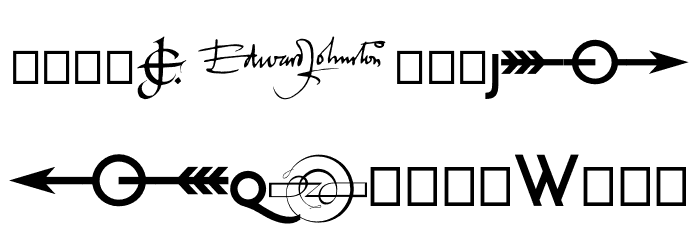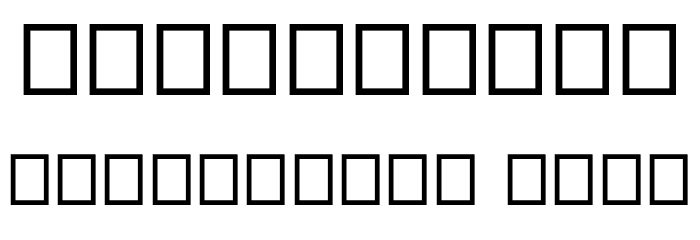
RailwayAlternate Font
This font features a bold and geometric design with clean lines and a modern aesthetic. The characters are constructed with a uniform stroke width, providing a sense of balance and stability. The uppercase letters are particularly striking, with a strong presence that commands attention. The font's simplicity and clarity make it highly legible, even at smaller sizes. It is well-suited for use in various design contexts, from digital interfaces to print media. The overall style is contemporary, with a hint of industrial influence, making it versatile for a range of applications.
A bold, geometric font with clean lines and a modern aesthetic.
- Font: RailwayAlternate
- Proposed Projects: Ideal for branding, signage, digital interfaces, and editorial design.
- Category: Sans-Serif
- Use Case: Headlines, Logos, Signage